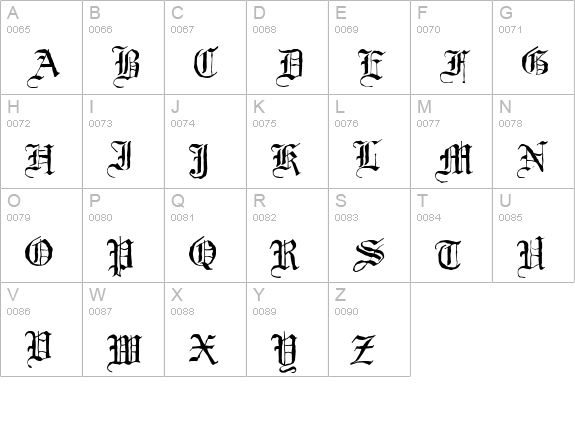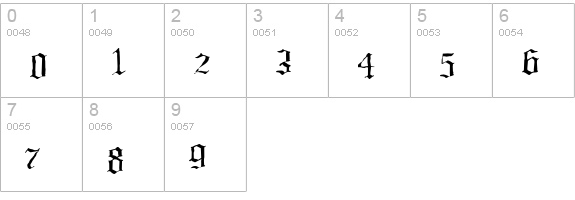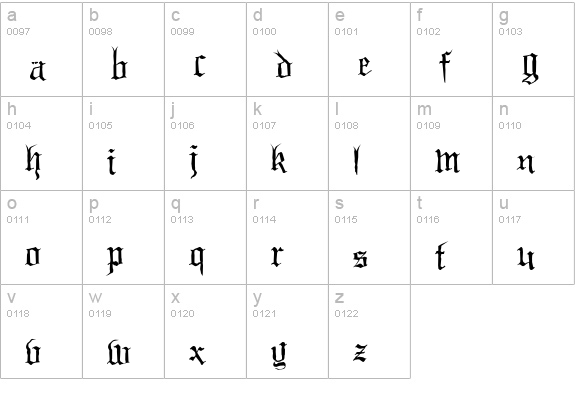
Black Night Font Details
Black Night is a maximum-weight, dramatic variant in the Black typeface family \xE2\x80\x94 well suited to maximum-impact headlines, posters, and packaging.
Black Night font is a stunning display typeface that exudes elegance and sophistication. With its sleek lines and sharp angles, this font is perfect for creating bold and impactful designs. Whether you're working on a logo, poster, or website, Black Night font will make your text stand out and leave a lasting impression. The best part? Black Night font is completely free to download at FontsMarket.com. Simply visit the website and grab this stylish font to elevate your projects to the next level. Don't miss out on the opportunity to add this versatile and eye-catching typeface to your design arsenal. Download Black Night font today and let your creativity shine!